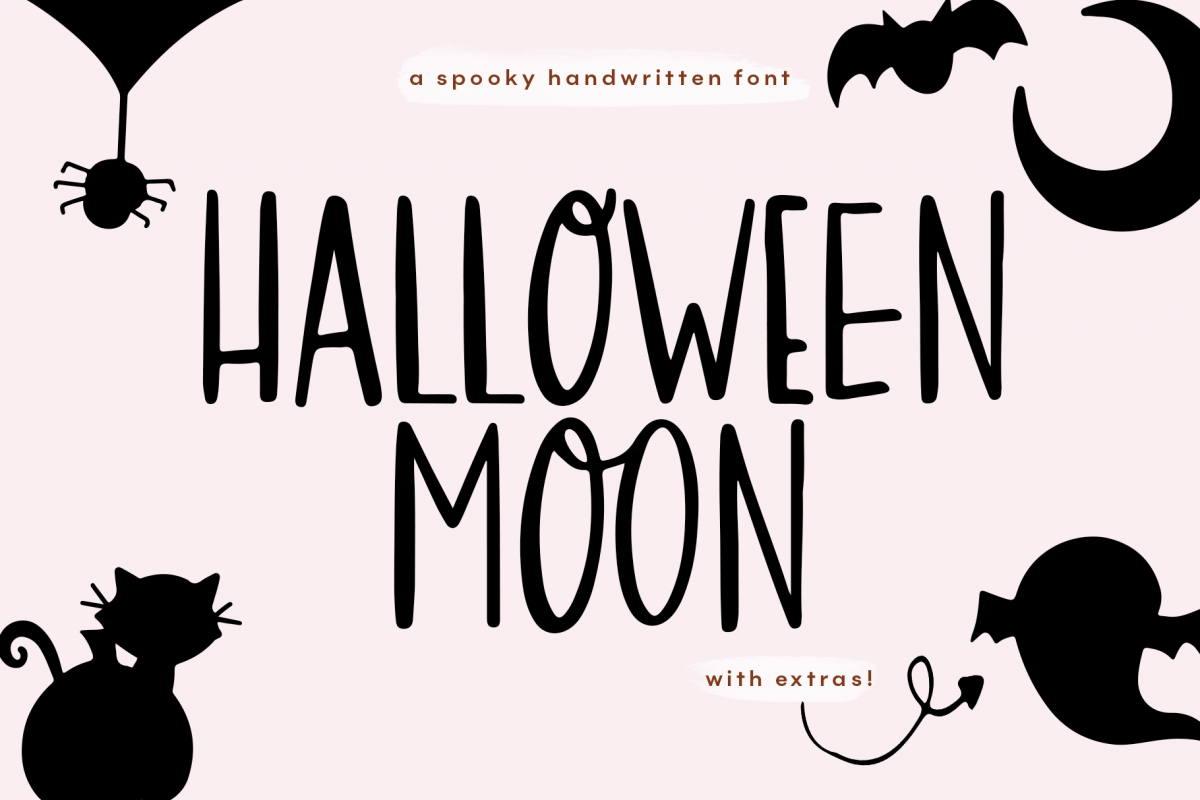
Halloween Moon - A Halloween Font with Extras!
Halloween Moon is a tall & spooky handwritten font.
The capital and lowercase letters are the SAME.
This font is perfect for all of your halloween designs - including quotes, blogs, logos, invitations, svgs, shirts, mugs and more!
HM Silhouettes is a doodle font included to compliment your designs!
This font includes most accent characters.